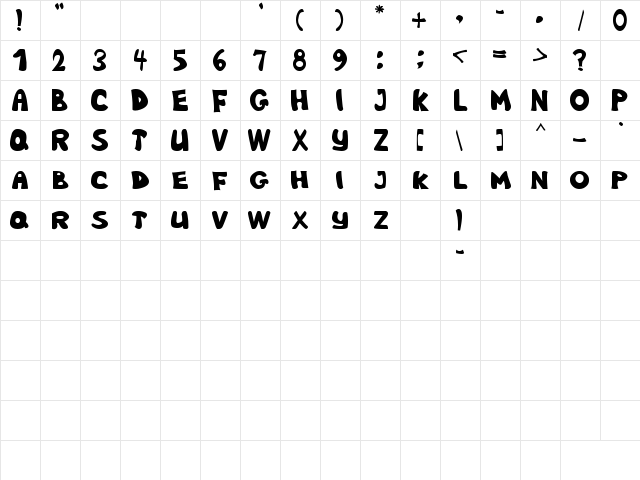
Nb Obese Regular
Design Context for Nb Obese Typeface
Nb Obese is a composed and adaptable typeface that performs quietly and consistently across a wide range of design contexts.